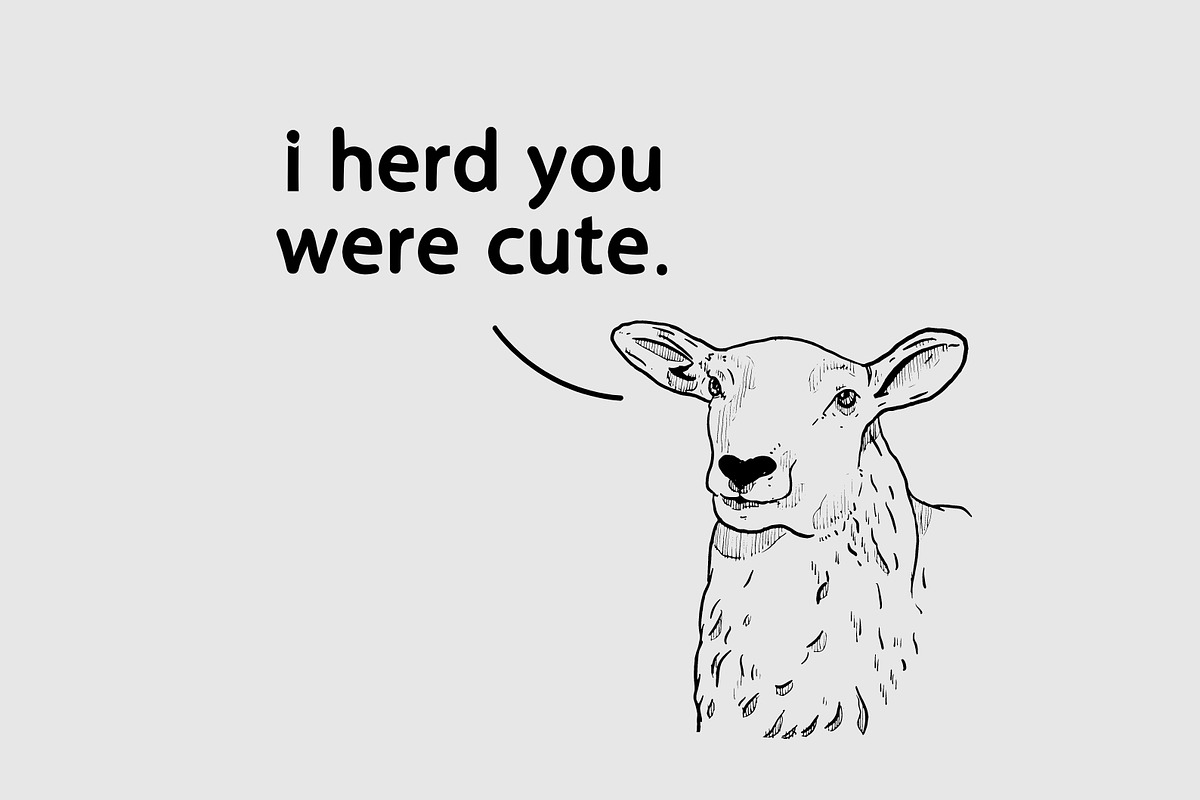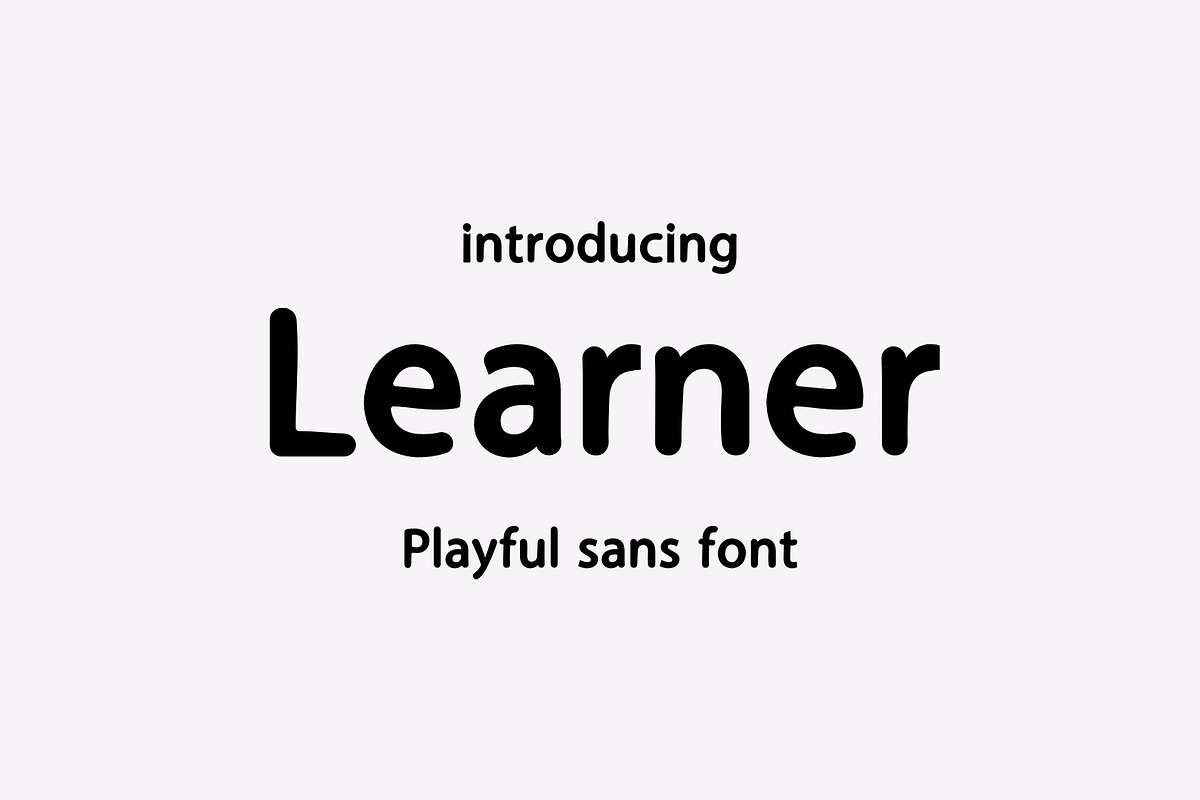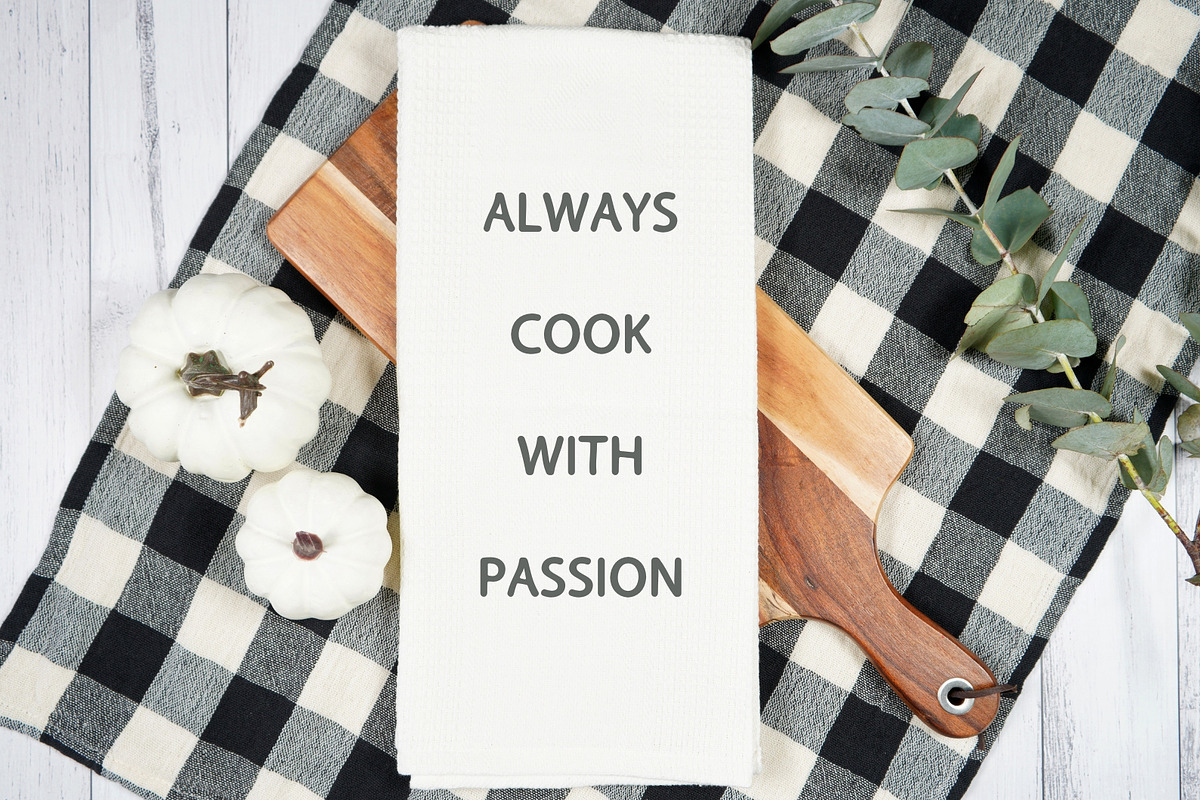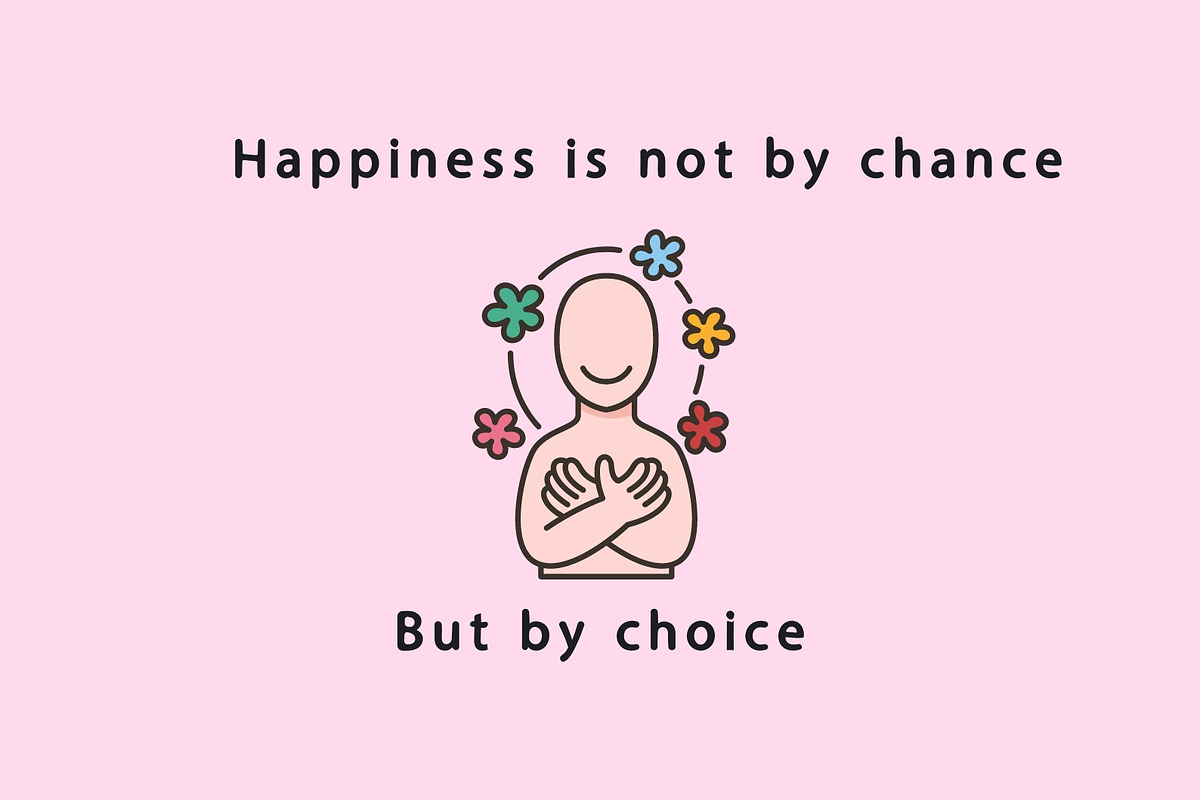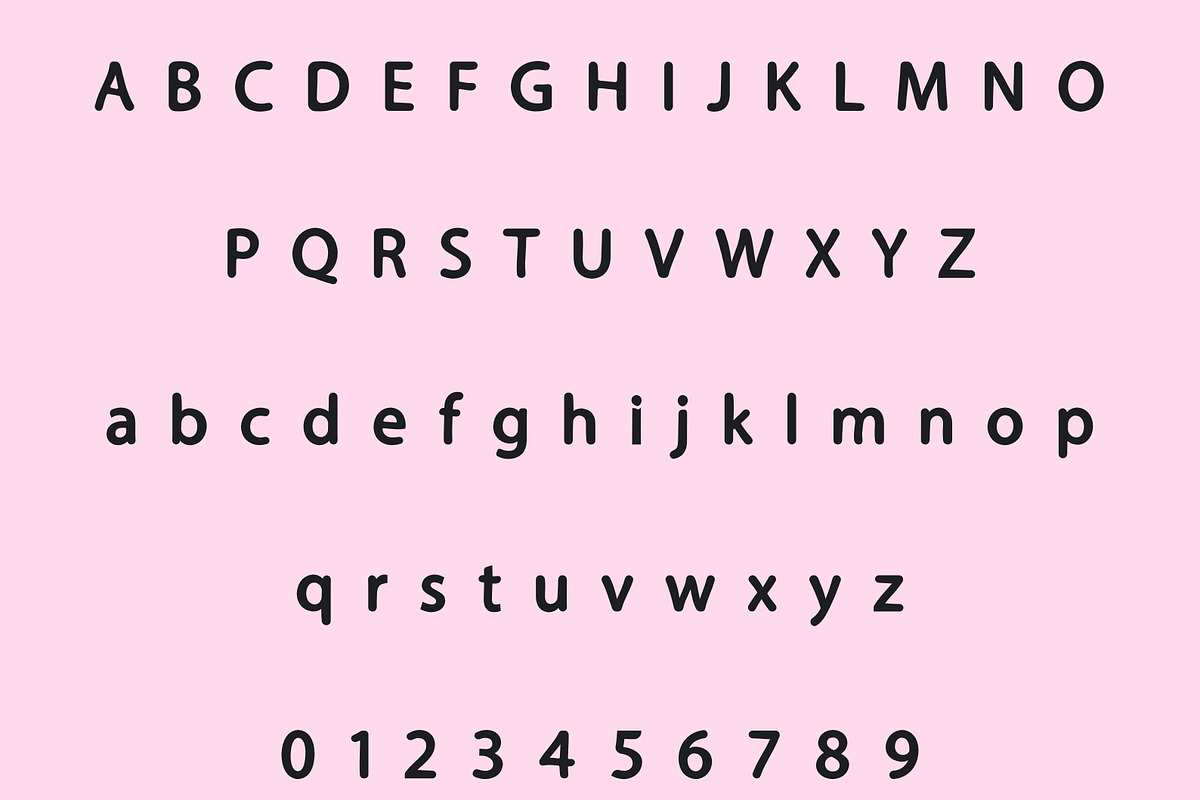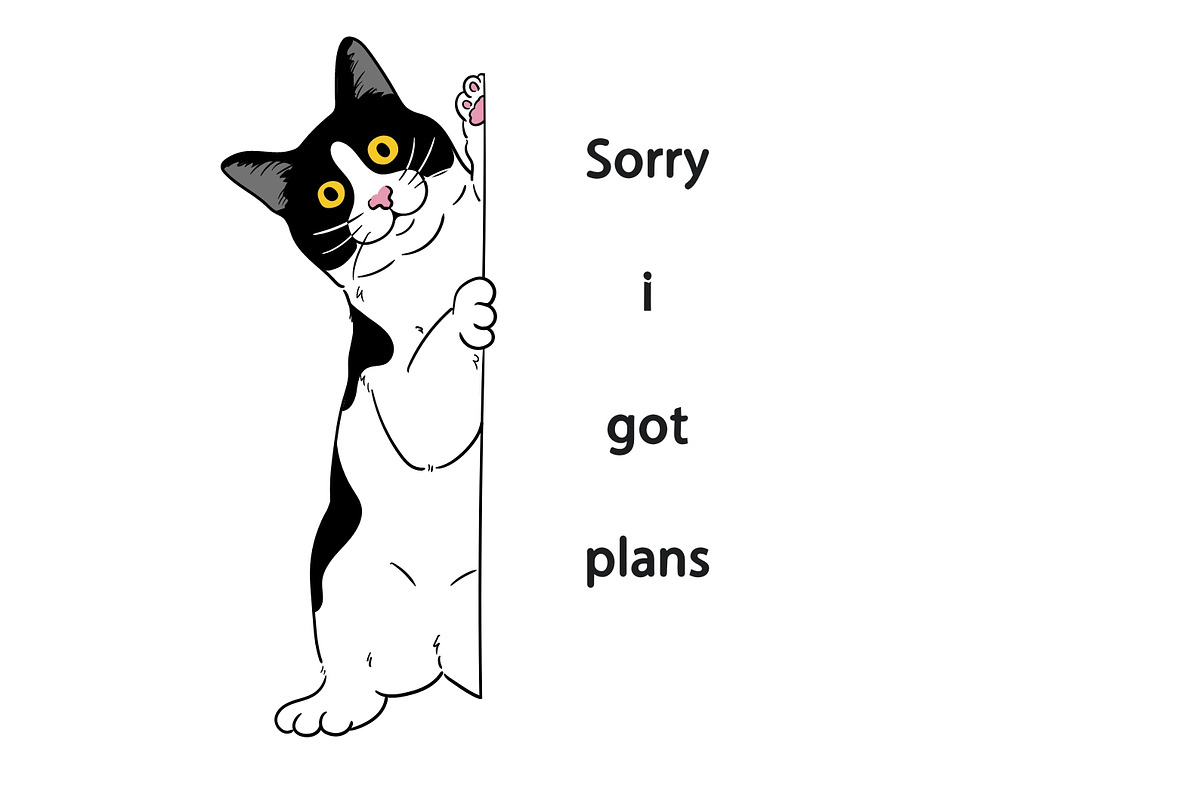
Learner - Sans serif
Learner is a Playful sans serif font.
NOTE: This font glyphs are little bit TILT in style.
This font is perfect for advertising, headings, blogs, logos, Notes taking , Planner and more!
Features: Uppercase, Lowercase, Numbers.